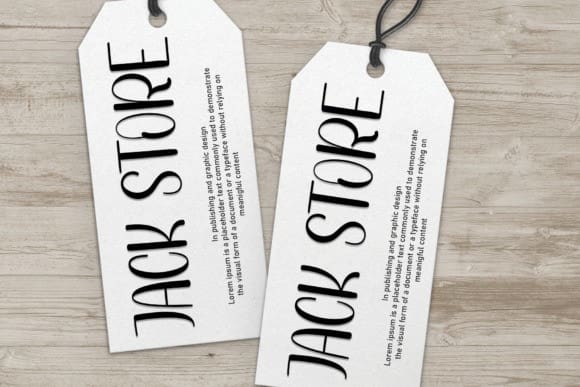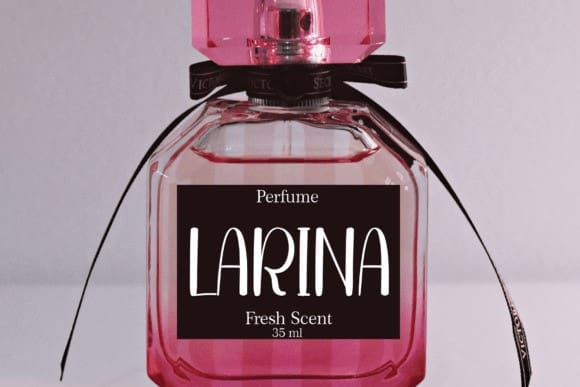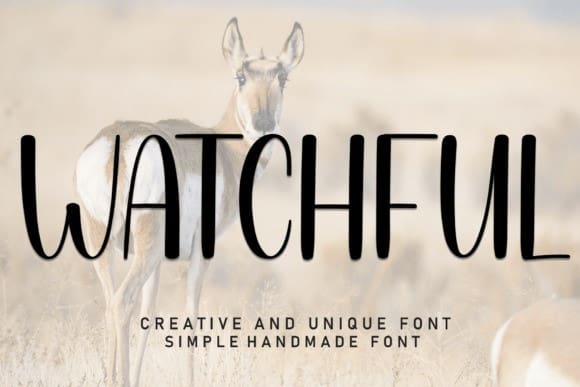
Watchful Font
Watchful Font is a sweet and friendly handwritten font. Fresh and cute, this font is ideal for writing wedding invitations, cards, or any other design that might need a fun touch!